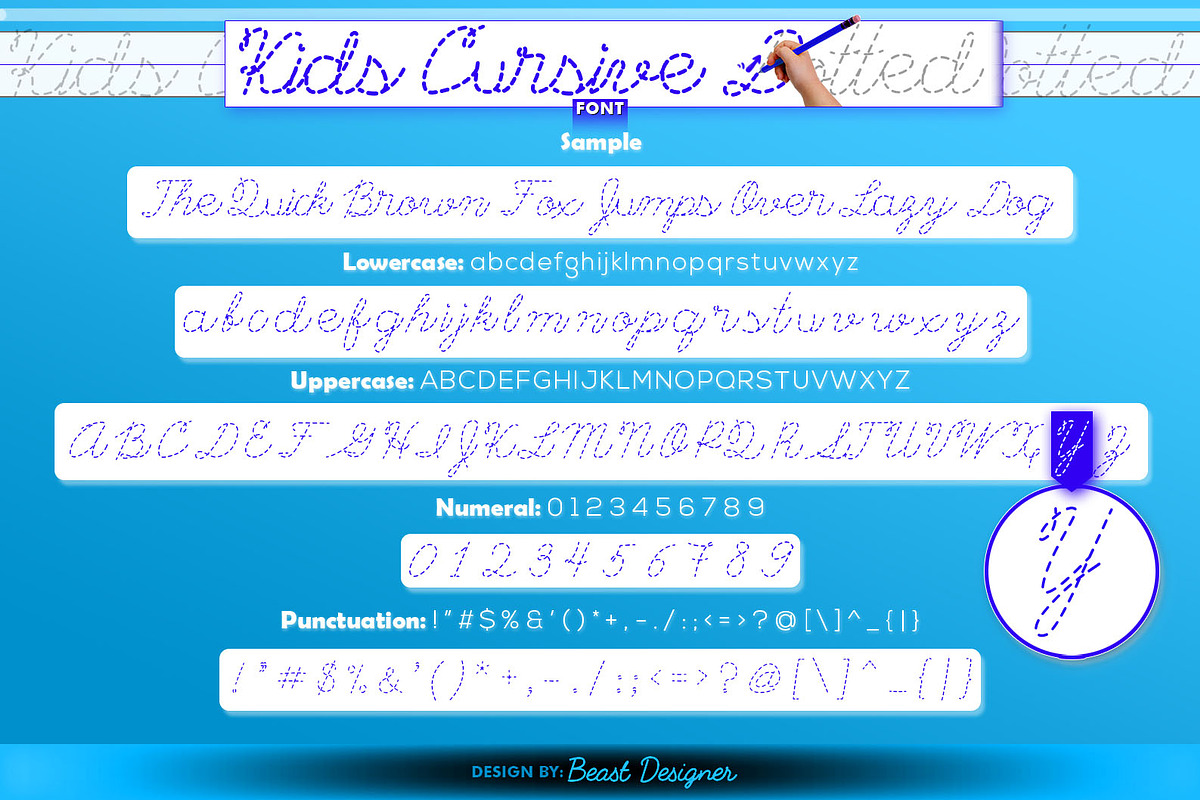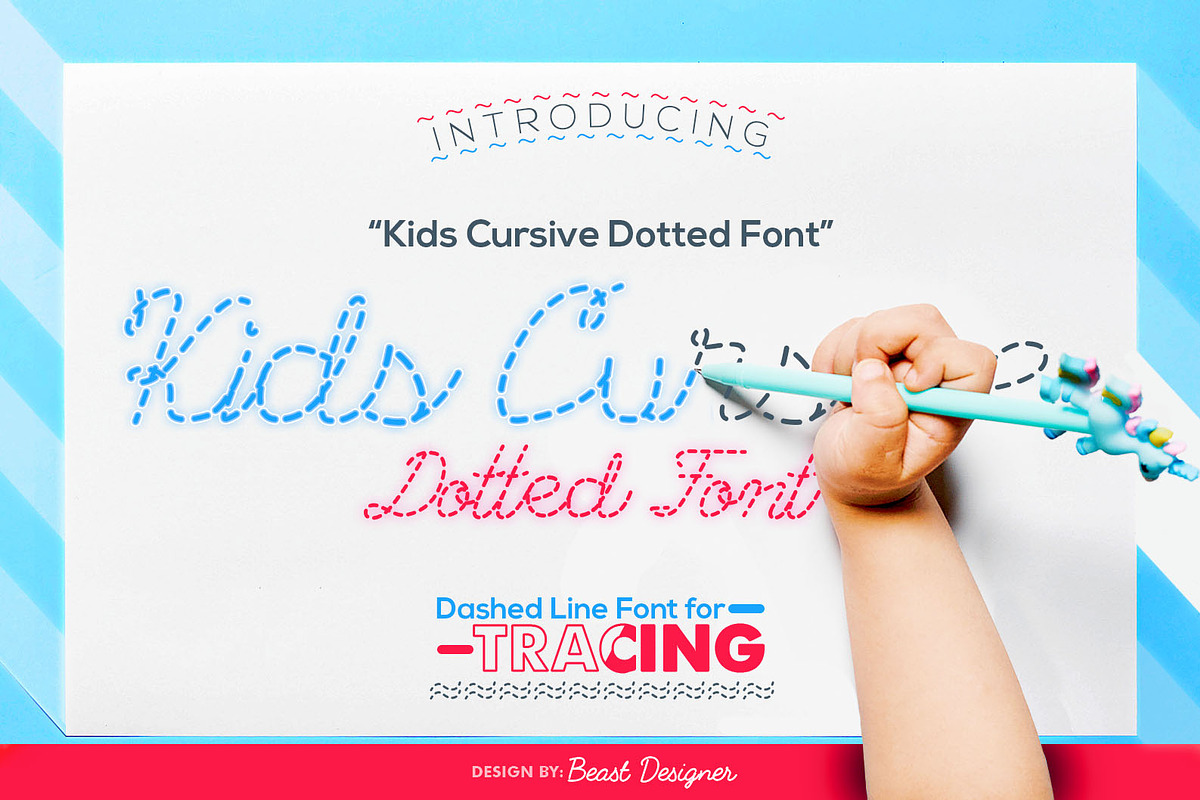
Kids Cursive Dotted
Kids Cursive Dotted is a delightful hand-drawn font designed specifically for preschoolers to practice their letter tracing. Its dashed style makes it easy for young learners to follow the strokes and develop proper handwriting skills. While primarily intended for educational purposes like worksheets and children's books, its playful and friendly aesthetic could also be charmingly incorporated into other design projects aimed at a younger audience.